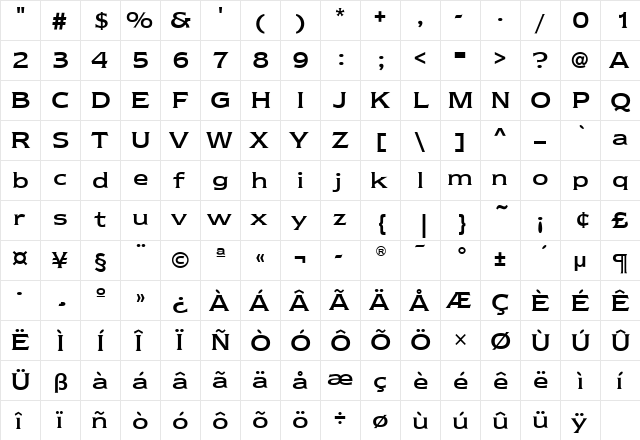
NewtextITC Regular
Design Context for NewtextITC Typeface
NewtextITC takes a measured approach to typography — its balanced proportions and neutral character make it a reliable workhorse for both digital and print work.